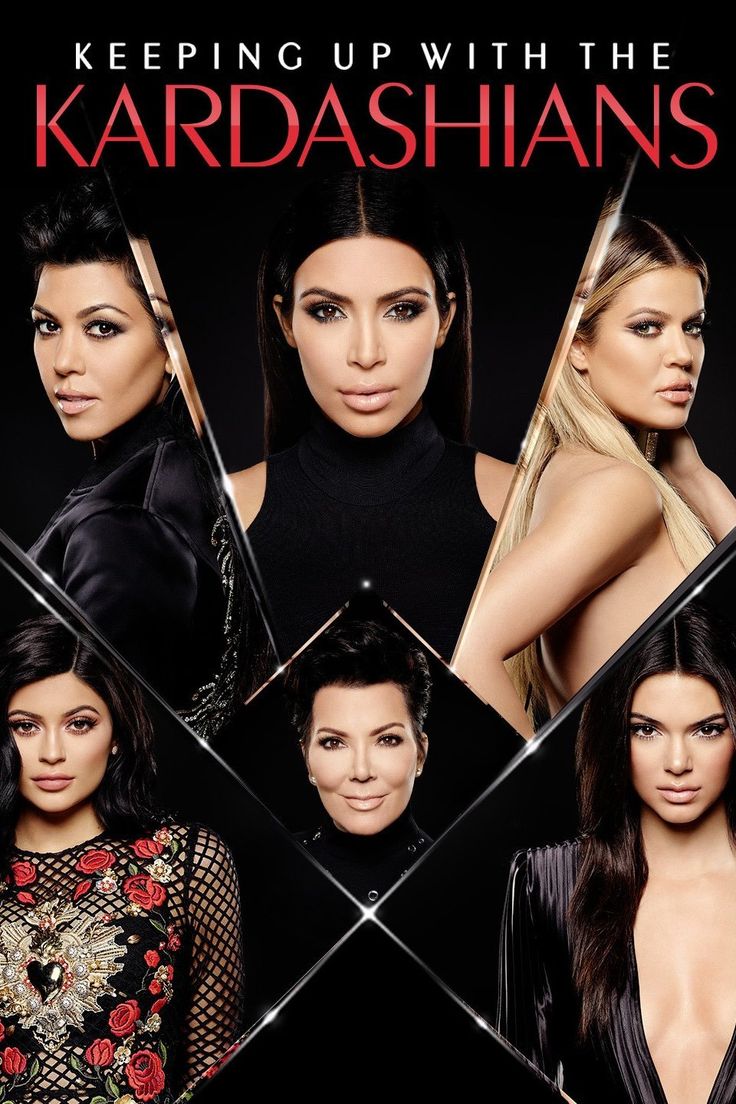
Keeping Up with the Kardashians Font
Fonts in UseKeeping Up with the Kardashians (KUWTK) is a reality TV show that premiered on E! channel in 2007, featuring the personal and professional lives of the Kardashian-Jenner family. It concluded its 20th and final season in 2021.
The reality show's current title card showcases Peignot Light, a sans-serif display typeface created by A. M. Cassandre in 1937. In contrast, the old title card used between 2007 and 2015 featured Baskerville Old Face font.